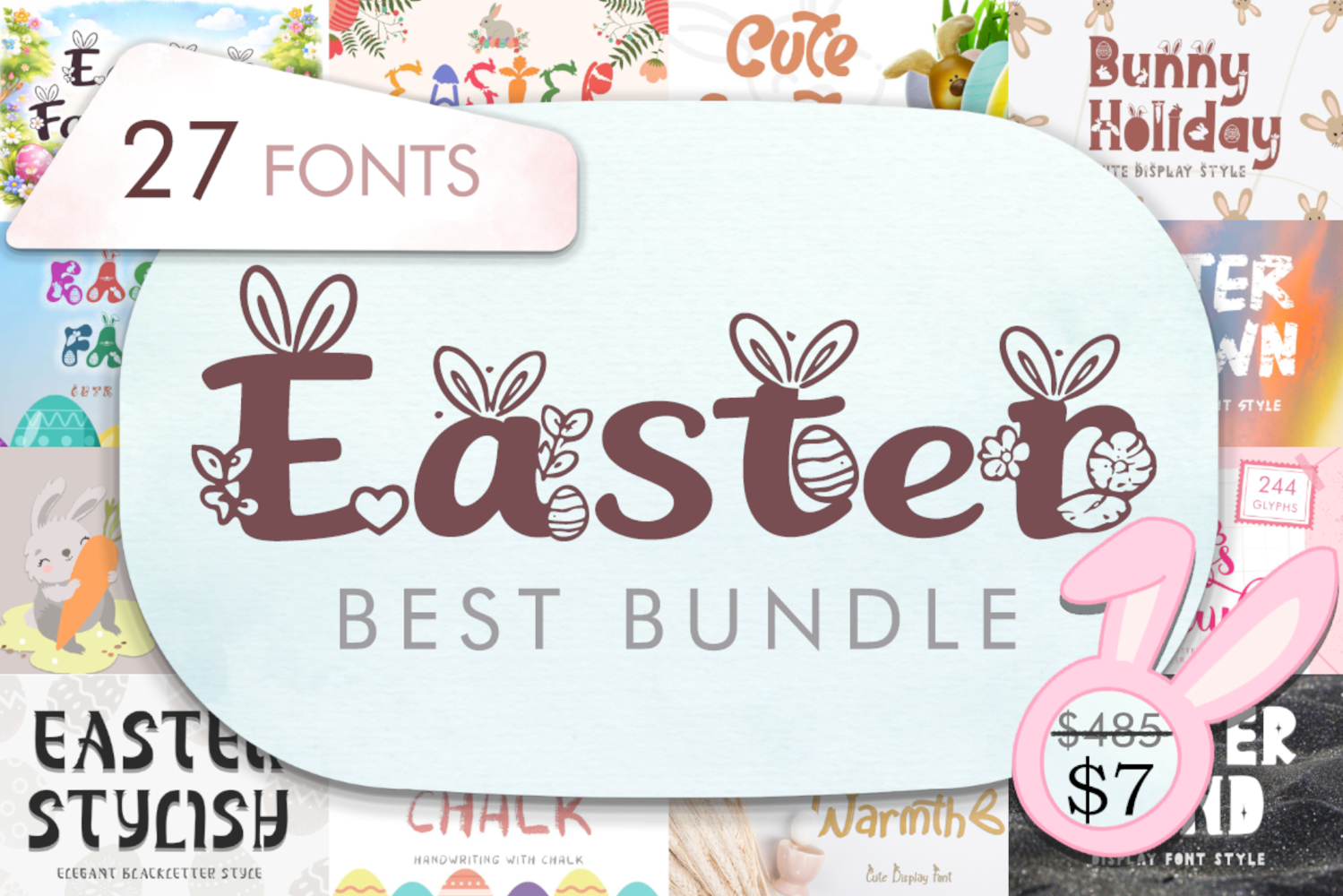
Easter Best Bundle
Complete font for all your work.
This bundle contains 27 cute fonts :
1. Easter Fabulous https://fontbundles.net/yogaletter6/6638190-easter-fabulous
2. Holy Easter Monogram https://fontbundles.net/yogaletter6/3536533-holy-easter-monogram
3. Spring Easter https://fontbundles.net/yogaletter6/2523295-spring-easter
4. Cute Spring Monogram https://fontbundles.net/yogaletter6/2454725-cute-spring-monogram
5. Easter Shepherd https://fontbundles.net/yogaletter6/2485451-easter-shepherd
6. Spring Natural Monogram https://fontbundles.net/yogaletter6/3493746-spring-natural-monogram
7. Easter Warmth https://fontbundles.net/yogaletter6/1247847-easter-warmth
8. Rabeeto Easter https://fontbundles.net/yogaletter6/3430273-rabeeto-easter
9. April Spring https://fontbundles.net/yogaletter6/2520727-april-spring
10. Dainty Spring https://fontbundles.net/yogaletter6/5388977-dainty-spring
11. Easter Brown https://fontbundles.net/yogaletter6/5297702-easter-brown
12. Easter Stylish https://fontbundles.net/yogaletter6/5288918-easter-stylish
13. Easter Land https://fontbundles.net/yogaletter6/5272554-easter-land
14. Bunny Holiday https://fontbundles.net/yogaletter6/5224576-bunny-holiday
15. Easter Family https://fontbundles.net/yogaletter6/5219892-easter-family
16. Spring Shadow https://fontbundles.net/yogaletter6/3540193-spring-shadow
17. Rabbit Dream https://fontbundles.net/yogaletter6/3375450-rabbit-dream
18. Spring Peachy https://fontbundles.net/yogaletter6/3272916-spring-peachy
19. Easter Smile https://fontbundles.net/yogaletter6/3265459-easter-smile
20. Funny Easter https://fontbundles.net/yogaletter6/2450111-funny-easter
21. Easter Chalk https://fontbundles.net/yogaletter6/2445084-easter-chalk
22. Cute Easter https://fontbundles.net/yogaletter6/1888326-cute-easter
23. Hola Easter https://fontbundles.net/yogaletter6/1852774-hola-easter
24. Easter Park https://fontbundles.net/yogaletter6/1825138-easter-park
25. Yellow Easter https://fontbundles.net/yogaletter6/1238090-yellow-easter
26. Smile Rabbit https://fontbundles.net/yogaletter6/1225176-smile-rabbit
27. Easter Day https://fontbundles.net/yogaletter6/1198562-easter-day